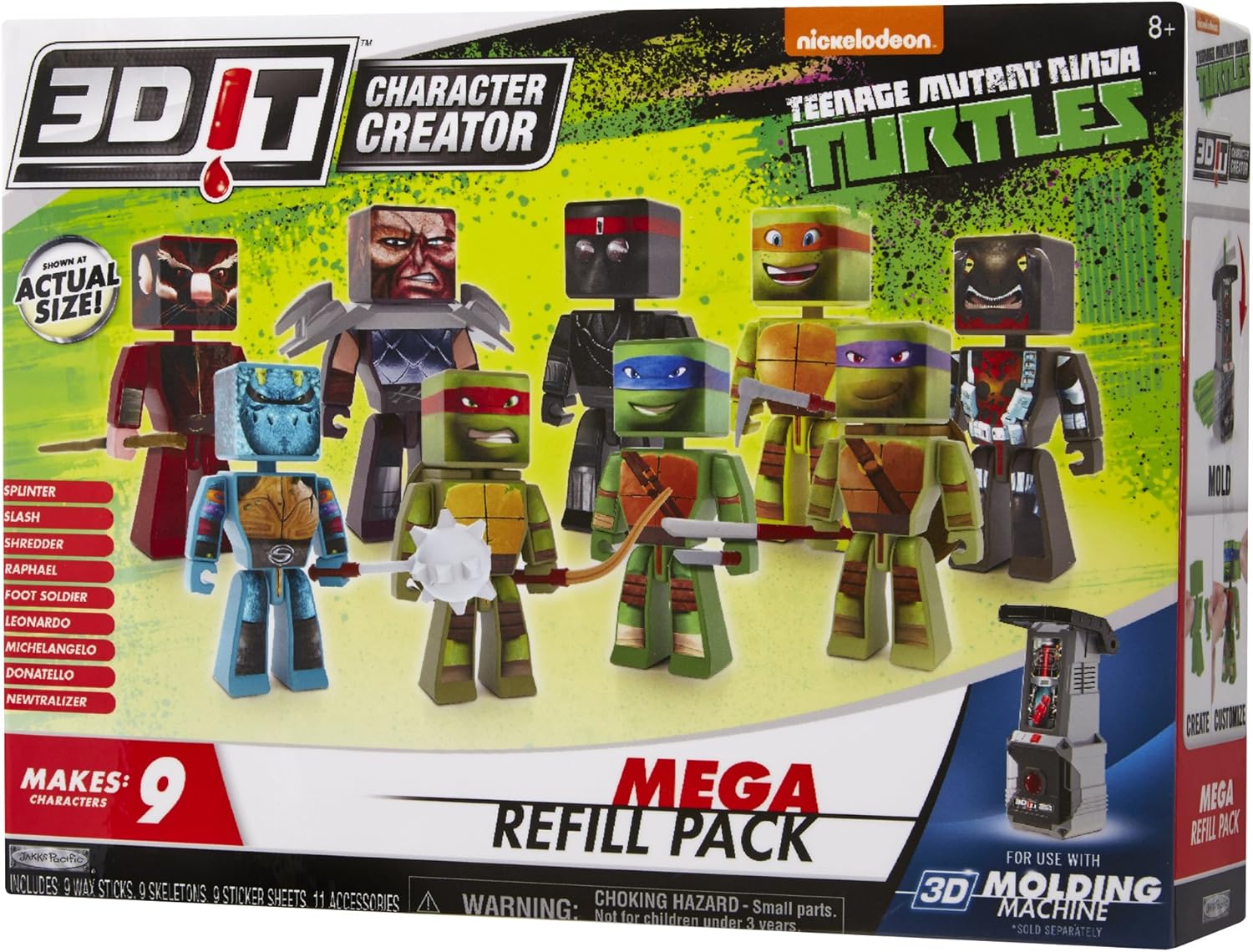
Teenage Mutant Ninja Turtles Font Creator
For our fonts, we went with a font similar to the original tmnt logos font for the headers, a comic book font for the body, and an 8bit font to use in various other places where we thought it would go well.
A teenage mutant ninja turtles logo maker based on this xkcd comic. You can get the tmnt logo generator here. The lettering for the green arched “turtles” is very similar to a font called turtles by neale davidson.
Leave a comment / january 8, 2020. Turtles is inspired by the title logo of the classic teenaged muntant ninja turtlesi toyline and cartoon from the 1980s. Font factory ~ free m.u.g.e.n font editor audio software audacity ~ free audio editing software.
Any other font on your device can also be used. Teenage mutant ninja turtles logo generator. Fans have recreated the fonts from the movies so you can generate your own turtle.
If you want to create professional printout, you should consider a commercial font. After study of late 80s and early 90s merchandise, i believe the teenage mutant ninja type may have been based on a condensed itc stone sans bold (sumner stone, 1987) as it was released the same year the original tv show began airing and was also used on. Free fonts often have not all characters and signs, and have no kerning pairs (avenue ↔.
This thick, distressed typeface is based on the popular clasic teenage mutant ninja turtles logo. Teenage mutant ninja turtles, also known as tmnt, is a famous kids cartoon and movie series. Free fonts often have not all characters and signs, and have no kerning pairs (avenue ↔ a venue, tea ↔ t ea).
Use the text generator tool below to preview turtles font, and create appealing text graphics with different colors and hundreds of text effects. We didn’t use too much color outside of our images but when using the turtle font, we also used the tmnt green from the original tv series. Each box featured a qr code that gave fans access to a free download of the show's theme tune and digital fan kits full of additional graphics and goodies.
As a pixel font, this font is mainly for fun, and is. Teenage mutant ninja turtles teenage mutant ninja turtles. The ‘at sign’ has been replaced with the ‘foot clan’ symbol.
There are no commercial license purchase options. Based on the lettering she used in eastman & laird's teenage mutant ninja turtles, specifically the city at war arc and volume 2 that followed. You can further customize the font in the more options section, and also add additional text boxes.
This typeface includes the full alphabet, extended punctuation, and euro. Enter font size select an effect all text effects You can customize the font color and outline color next to where you type your text.
A proportional solid pixel font inspired by the comic lettering of mary kelleher. Find this pin and more on finley's birthday party ideas by amanda kayes. Imgflip supports all web fonts and windows/mac fonts including bold and italic, if they are installed on your device.
Second, master splinter is already in progress. Third, why not starting a new. Such as png, jpg, animated gifs, pic art, symbol, blackandwhite, picture, etc.
Across the uk, 2500 phone boxes were adorned with each of the teenage mutant ninja turtles. The font called turtles was inspired by the bottom half, but it came along much later.